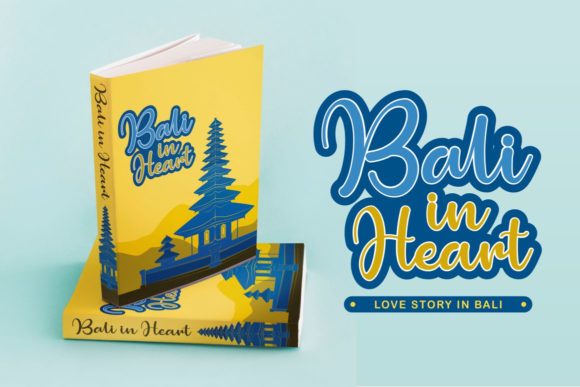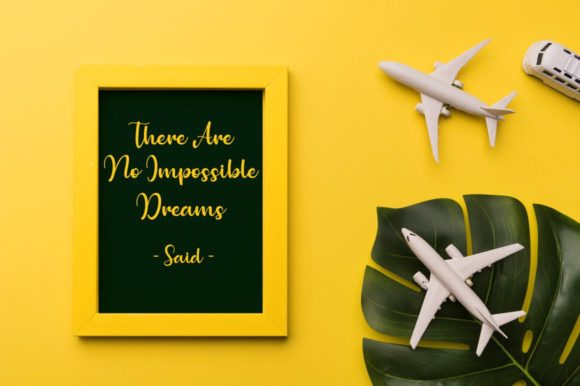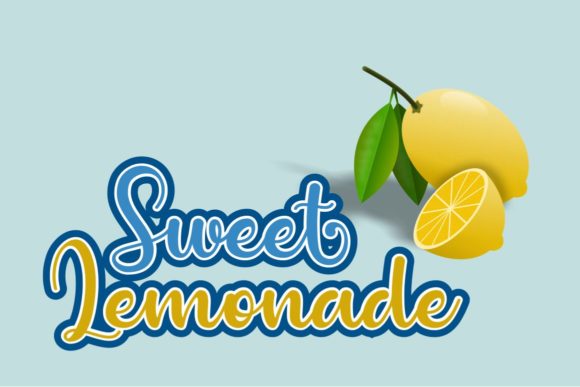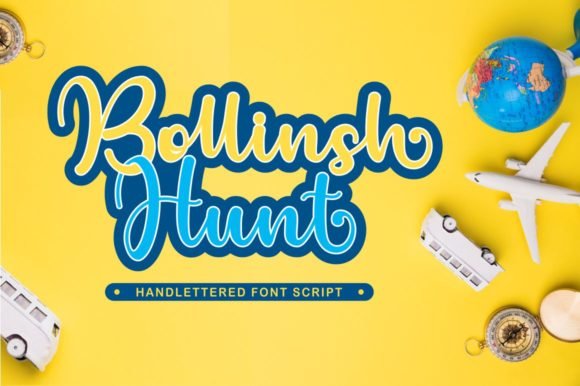
Introduction to Bollinsh Hunt Font
Bollinsh Hunt is a carefully handlettered script, perfect for any school-themed crafts.
Bollinsh Hunt is a carefully handlettered script, perfect for any school-themed crafts!
Key Features of Bollinsh Hunt Font